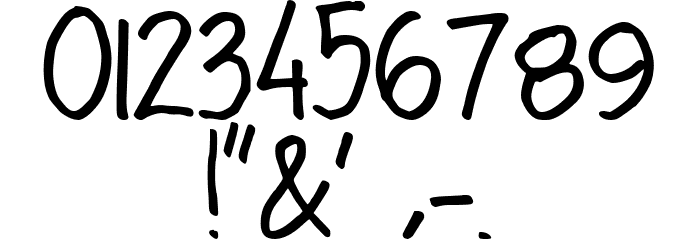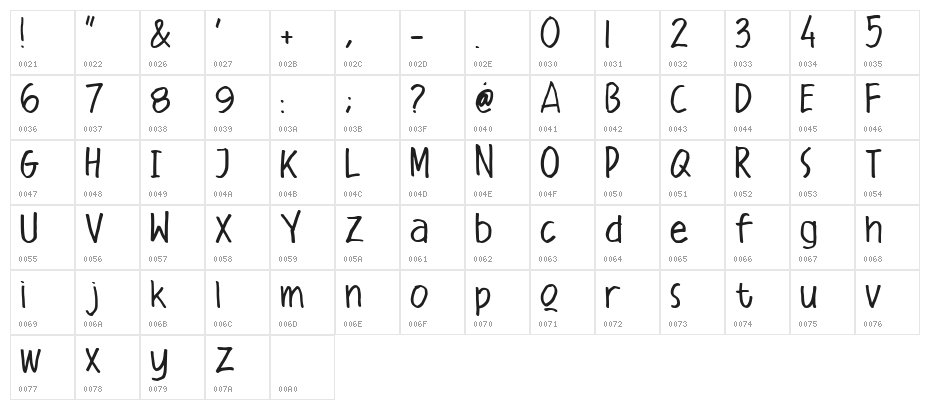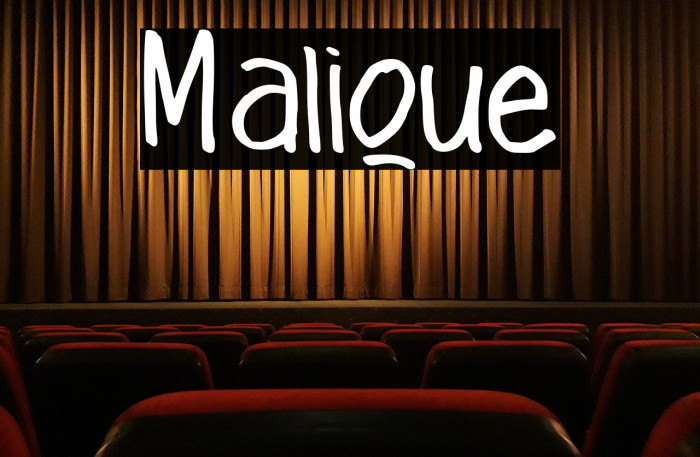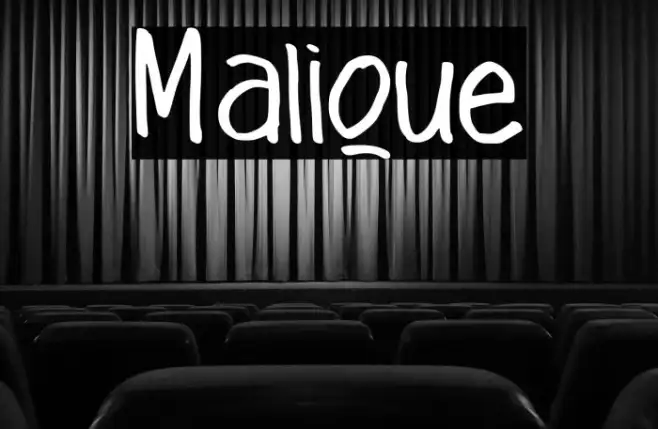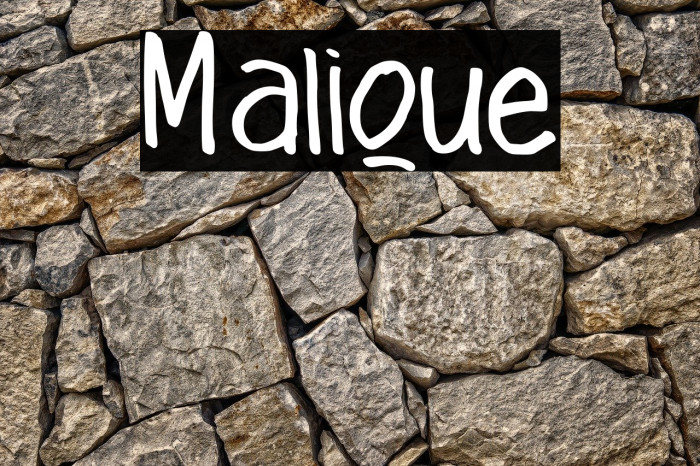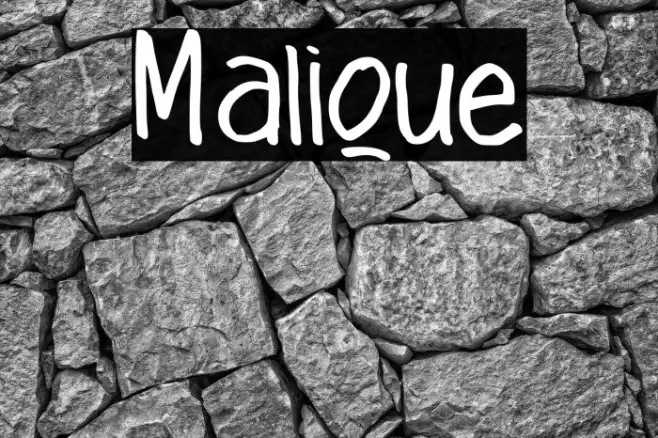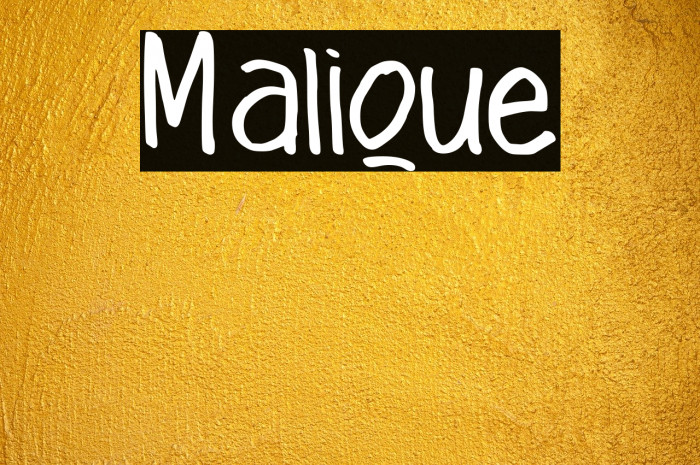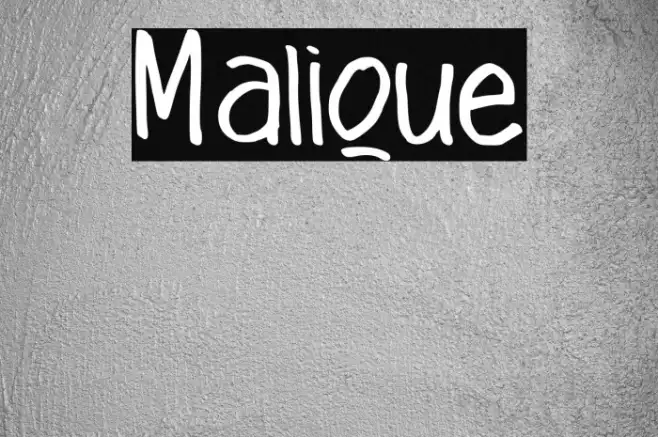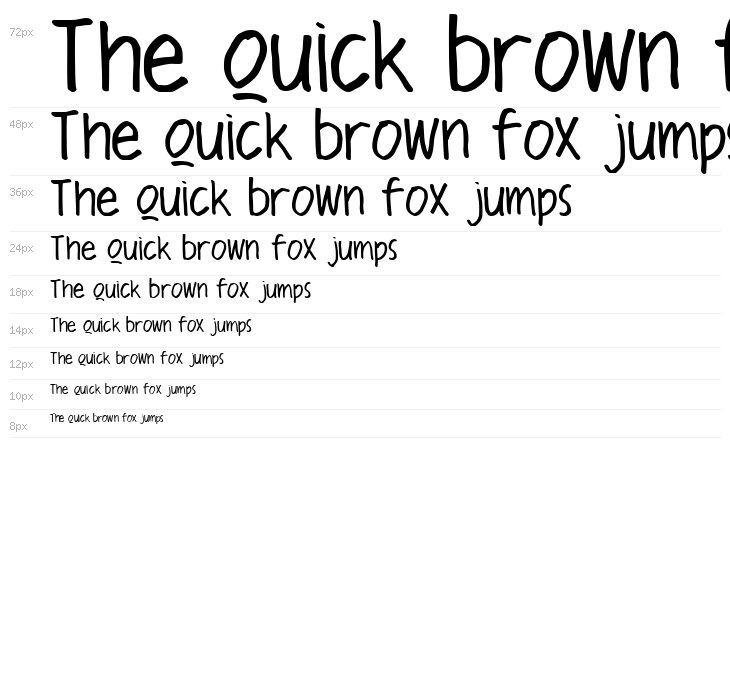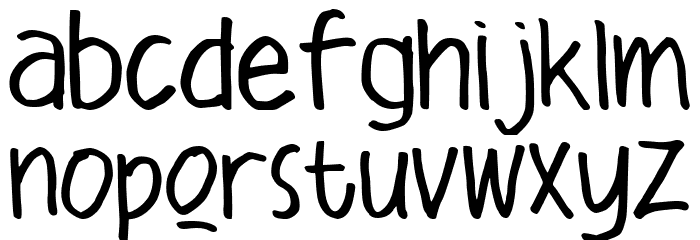
Malique Font
Malique Description
This font features a playful and casual handwritten style, characterized by its irregular and organic strokes. The letters have a slightly uneven baseline, adding to the informal and friendly appearance. The uppercase and lowercase letters maintain a consistent style, with rounded edges and a moderate thickness that ensures readability. The numerals and special characters follow the same design principles, making the font versatile for various applications. Its unique charm lies in its imperfect, human-like touch, which can add personality to any project.
| Use Case | Headlines, Informal text, Personal projects |
| Proposed Projects | Ideal for greeting cards, children's books, personal blogs, and informal branding projects. |